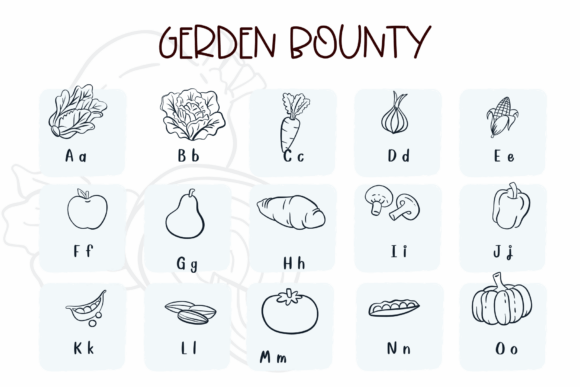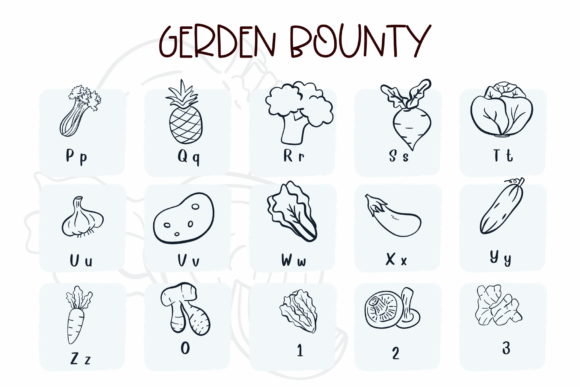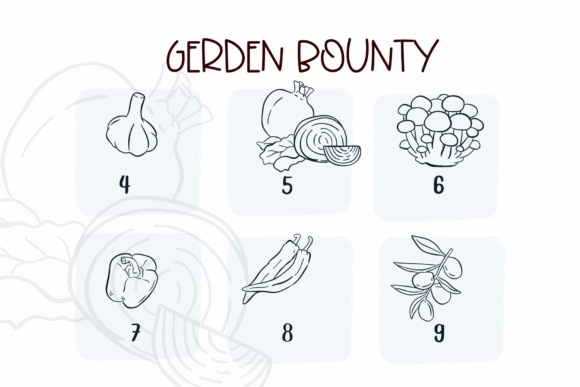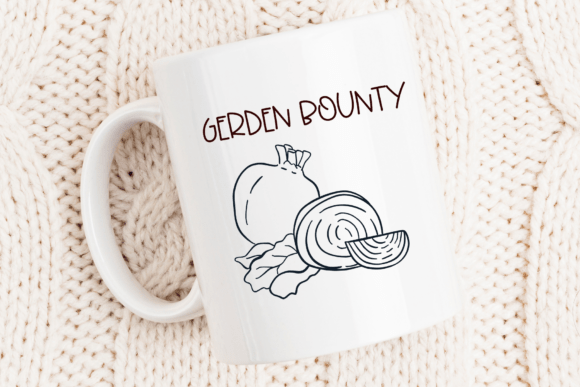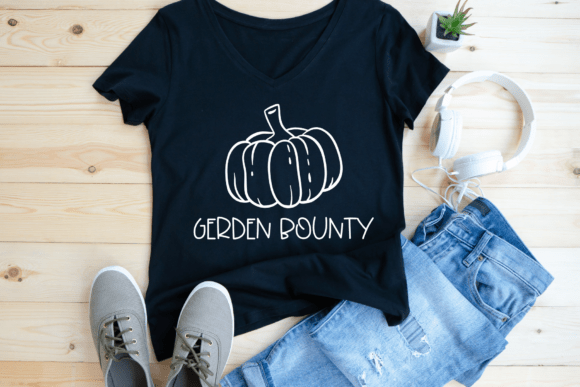
Introduction to Garden Bounty Font
Garden Bounty is a delightful dingbats font packed with hand-drawn fruits, veggies, and garden goodies.
Perfect for eco-friendly packaging, recipe cards, farmers market signage, or kids’ nutrition worksheets, this playful set brings a fresh and organic charm to any project .
Key Features of Garden Bounty Font
Why Choose Garden Bounty Font?
Garden Bounty Font offers exceptional quality and versatility, making it a valuable addition to your design toolkit. Whether you’re creating for personal projects or commercial use, Garden Bounty Font delivers professional results.